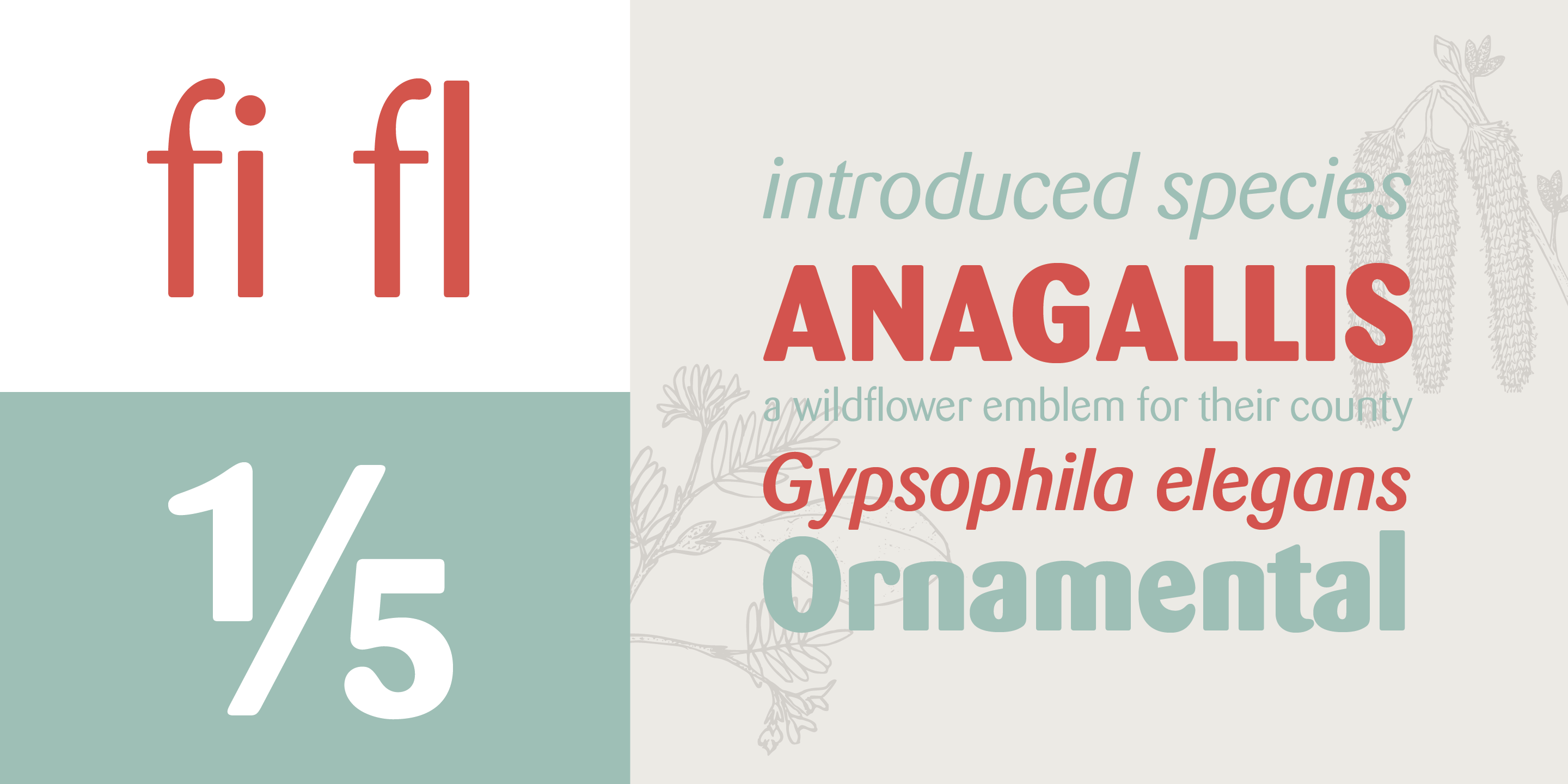
This distinctive display typeface is perfect for cocktail bars, nightclub branding, wine labels, premium spirits, upscale restaurants, entertainment venues, jazz clubs, craft distilleries, and sophisticated hospitality logo design.
Barmeno Font brings excitement to your design projects with its elegant sophistication and nightlife appeal. This stylish display font features refined letterforms with distinctive character that captures the essence of premium hospitality and evening entertainment, making it perfect for establishments that cater to discerning clientele. The font's luxurious appearance and smooth curves create an atmosphere of exclusivity while maintaining excellent readability in low-light environments.
The Barmeno Font family includes regular, bold, and light variations, offering designers versatile options for creating memorable hospitality brand identities. Each style maintains the font's signature elegance while providing different levels of visual impact for various menu designs and entertainment marketing applications.
Elevate your hospitality branding with Barmeno Font Free Download today. This sophisticated typeface combines nightlife glamour with professional quality, making it essential for premium entertainment industry communications. Whether you're designing cocktail menus, creating venue signage, or developing luxury beverage packaging, this font delivers premium results with its refined character and exclusive appeal.
The carefully crafted letterforms ensure consistent elegance across all hospitality touchpoints. Download Barmeno Font now and add this distinguished typography solution to your creative collection for projects that demand sophistication and memorable brand presence in the entertainment industry.